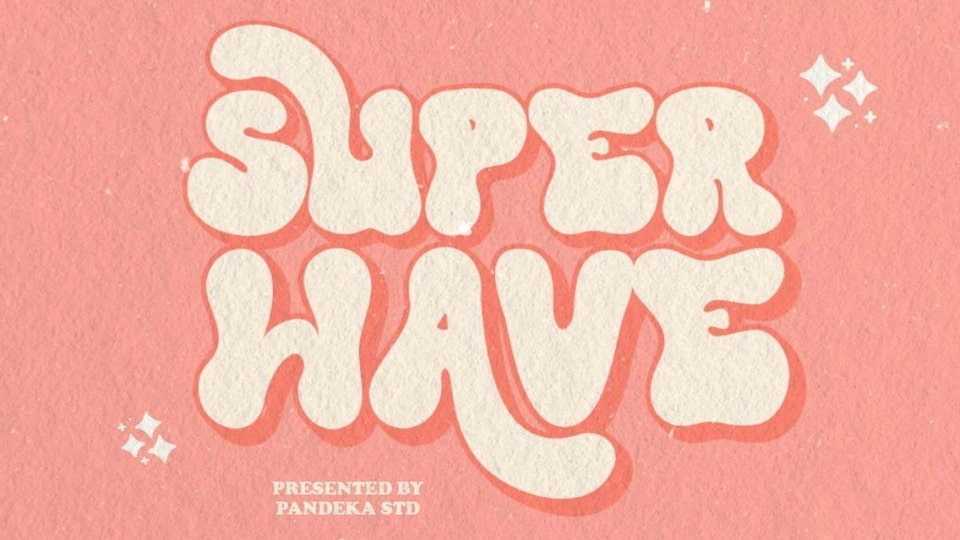
Download Super Wave font, a bold groovy retro serif typeface. Use this display font to add that special retro touch to any design idea you can think of